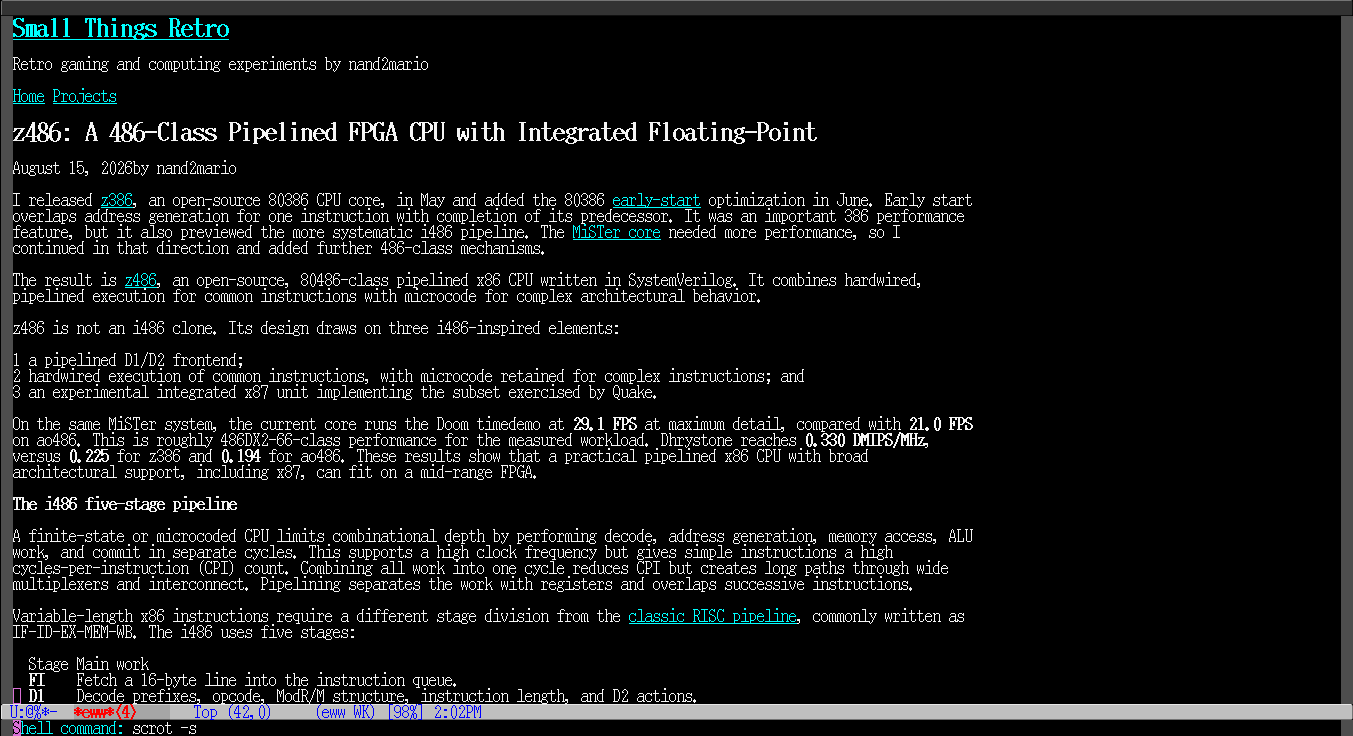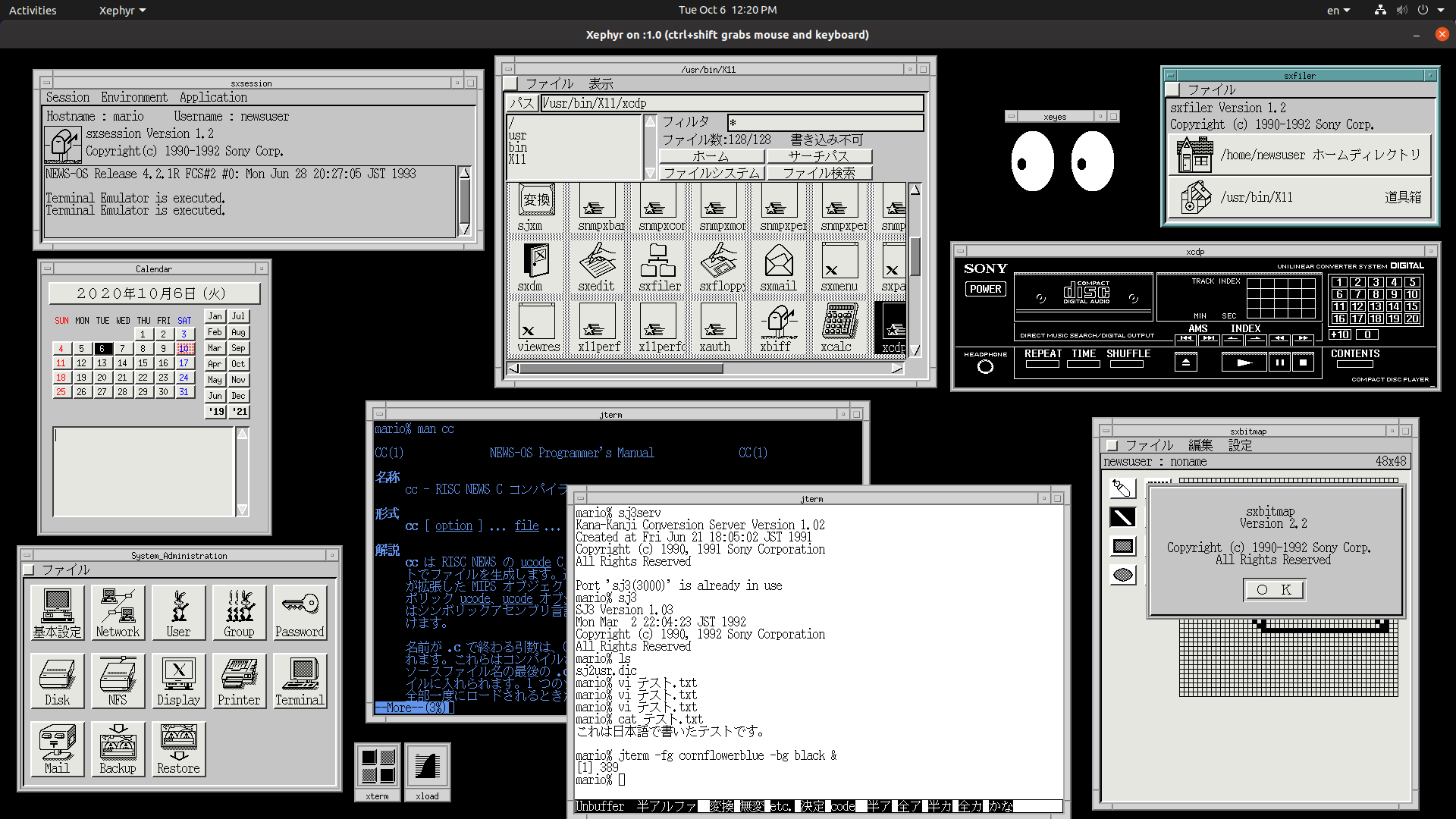
Nothing like good clean crisp bitmap fonts.
Crisp? Maybe. Clean? Definitely not. More aliasing jaggies than a hand saw.
Scalable vector fonts at high DPI are where it's at.
>>109590317I don't like the kerning on that one, makes it a bit hard to read.
>>109590317What font is this?
>>109590491It's an oldie but goodie that I only was able to locate due to some Internet archaeology. Sony NEWS's default font. IIRC it was also used in the Sony Readers.Comes in two sizes, small and large!
>>109590577A very similar font can be seen on older SGI systems, before Irix, can't remember what they used to call their old OS. But it lacks Japanese characters, which this Sony font has. IMHO it probably came from Bell Labs or someplace, I think I've seen it on old Suns too.
>>109590619I can't judge the Kanji but the Latin letters are very nice imo, a lot more character to them than Ricoh's bitmap fonts
>>109590317Terminus chads were we @?
Also I doubt those are the same files because a couple dozen KB file isn't big enough to hold all the Japanese characters.
I like bitmap fonts. they make every pixel matter.for me, best one is vga 8x16.
bitmap fonts are a product of technological limitations and should be left behindsaying this as someone who has compiled a customized version of bmfont for special purposes
>>109591451What about for teeny tiny screens and stuff like embedded?
>>109591451it will be left behind once there's something better.can you name something better than vga 8x16?
>>109591456>>109591464anything more than 3x5 is bloat
>>109591484there's only one of such on that webpage! ibm vga 8x16.
First VGA card I should say. Next I had a Voodoo 3, which has its own onboard VGA adapter and I don't know which font it uses.Then I got a Powerbook G4 which had the ATI VGA font and you could get at it by booting into the OpenFirmware console, which was great for tinkering with the computer.In fact most computers even today have a VGA or VGA-alike console mode with some built in fonts. If they have a display adapter at all.
>>109591543trident 8x16 looks very similar to ibm vga 8x16.
>>109591581In those days IBM would sue if the font was exactly alike, probably meant you cloned their VGA ROM and etc. directly so the dodgier Taiwanese companies would just clone the fonts and change a pixel here and there, the Europeans and Americans would actually create their own fonts sometimes.
>>109590317This looks like shit, increase the gap you clown.
>>109592152he probably uses an ultra high-dpi screen where even fonts pulled out of one's ass with no regard to alignment or hinting look smooth and readable.
>>109591955Ps/55 re. jpn version is most best
>>109590327FPBP.>>109590371Not on a phone, you can literally see issues with "486" in bold 25pix font right there.